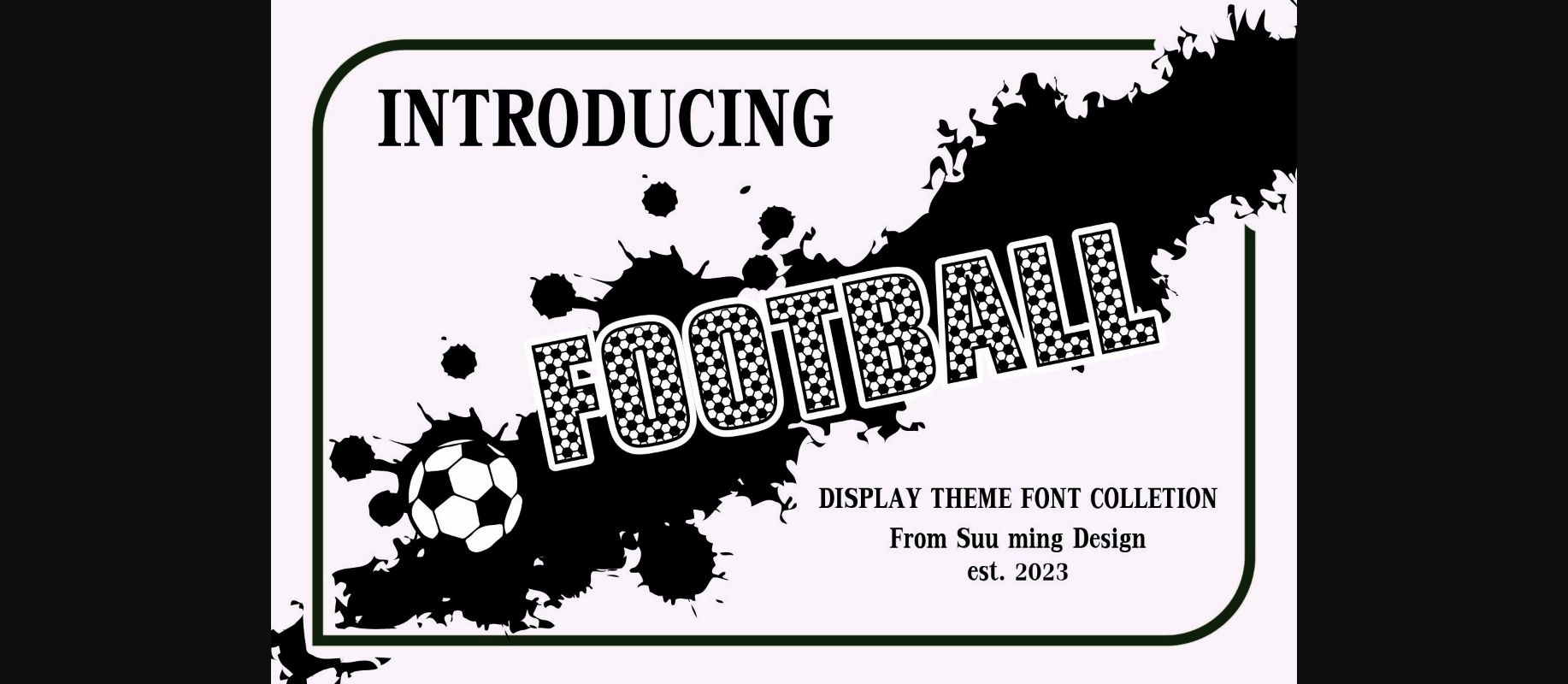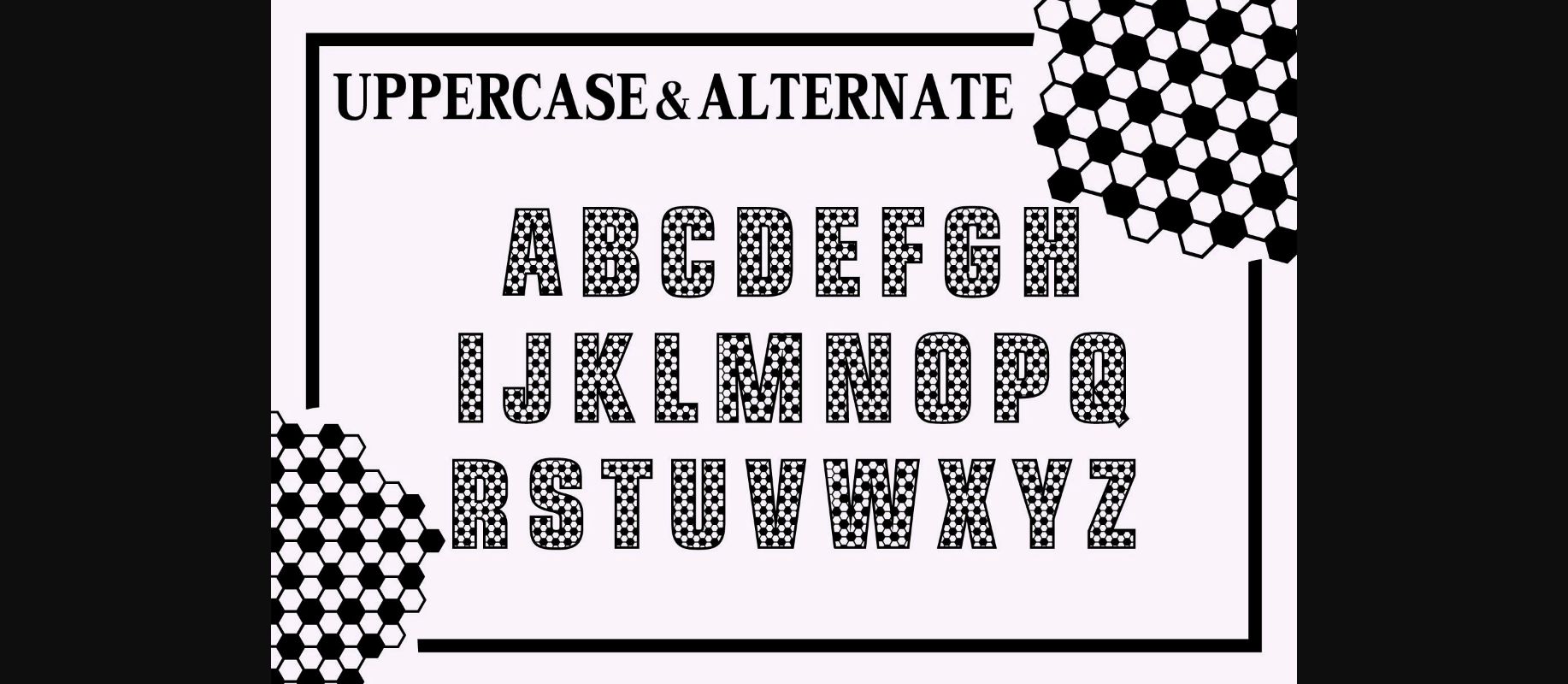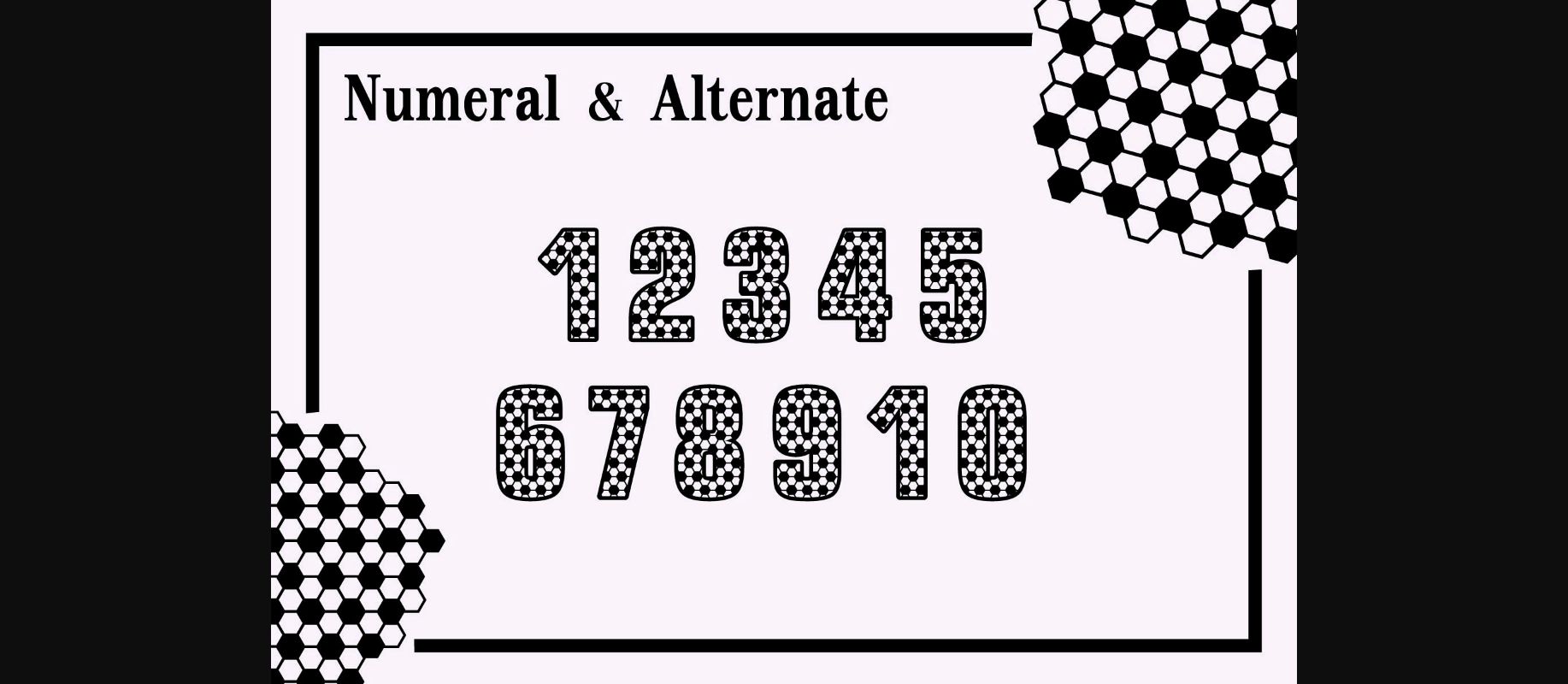
About Football Font
Football is created to add a vibrant touch to your sport-inspired designs. Suitable for sports design, team, jersey, league, movie, documenter, film, logo, poster, game, book cover, headlines, title, and many more projects.